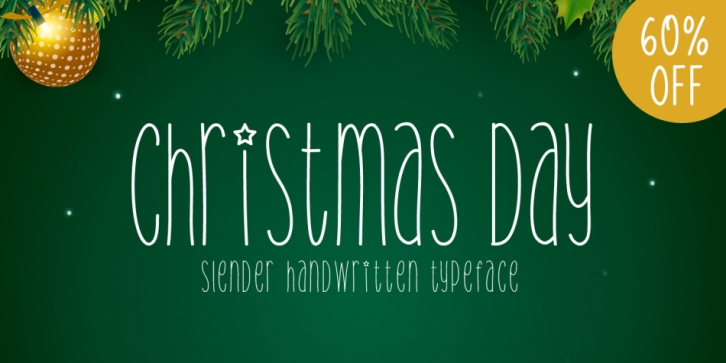
Designed by Md. Shohail Bhuiyan, Christmas Day is a hand display font published by Seemly Fonts.
Christmas Day is a simple and thin lettered handwritten font. Its natural and unique style makes it incredibly fitting to a large pool of designs.